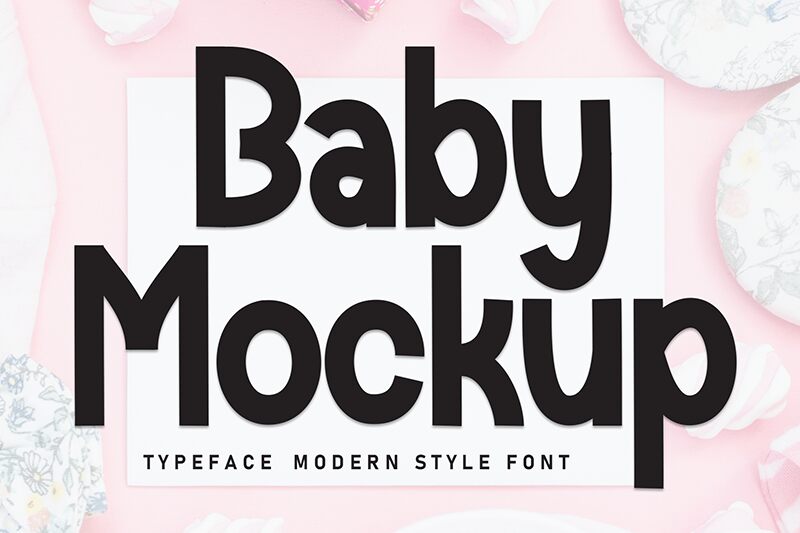
Baby Mockup
Baby Mockup font by Andi Moz is a display font with a rounded, smooth, and modern look. Its distinct characters give off an approachable vibe that makes the style friendlier than most. Each character has uneven thicknesses yet clean lines which successfully make everything readable.
With its easy-going and approachable style, this free font can be used for designing flyers, posters, social media images, infant products packages as well as apparel items. Baby Mockup would also work great to design logos of toy shops or similar businesses targeting parents and newborns.